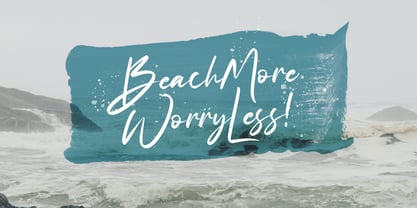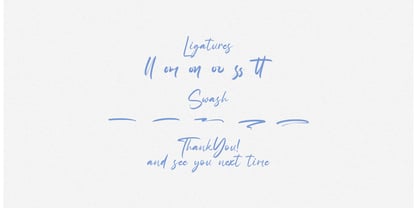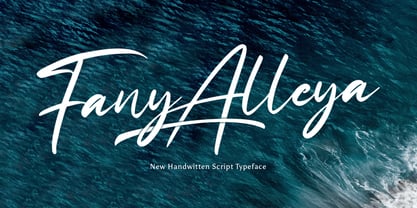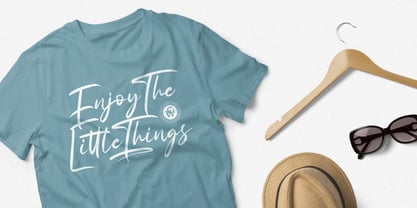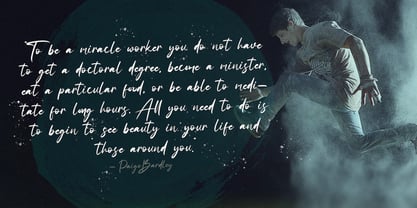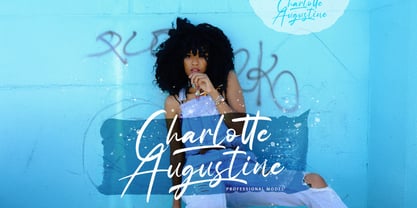
The Fany Alleya Font Family was designed by Virgiawan Listanto and published by Stringlabs Creative Studio. Fany Alleya contains 1 styles.
Fany Alleya is a charming handwritten font that blends elegance with a gentle, personal touch. With smooth, flowing lines and a naturally graceful rhythm, this font brings a warm and modern feel to any design. Perfect for heartfelt branding, romantic stationery, or lifestyle content, Fany Alleya adds a touch of beauty and authenticity to your creative projects.
Fany Alleya